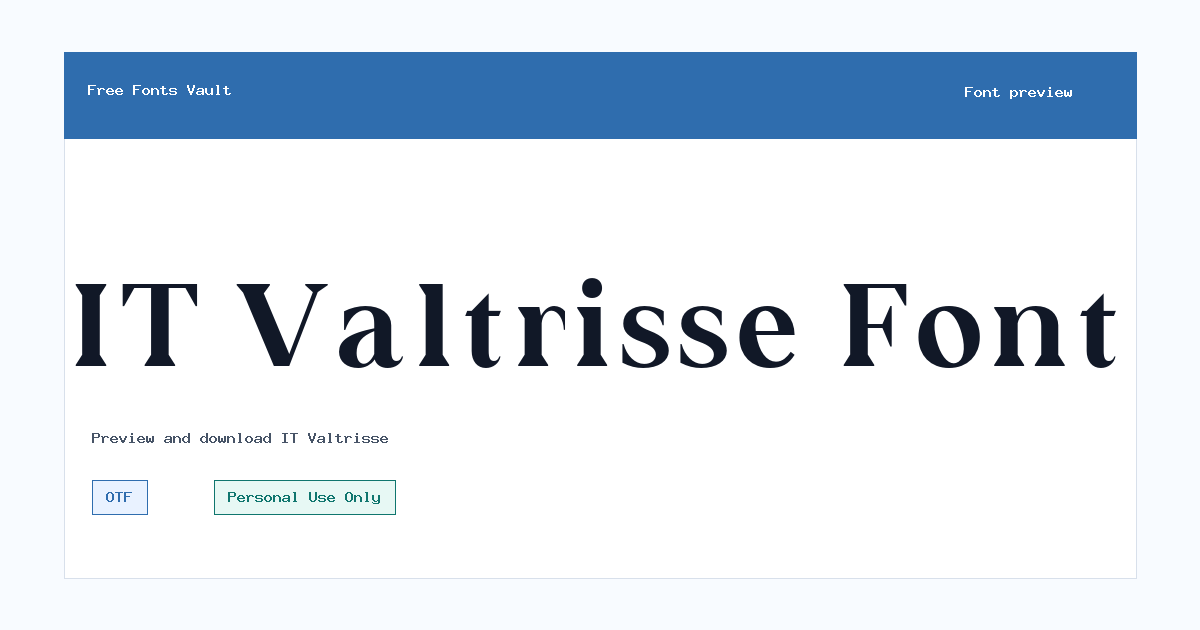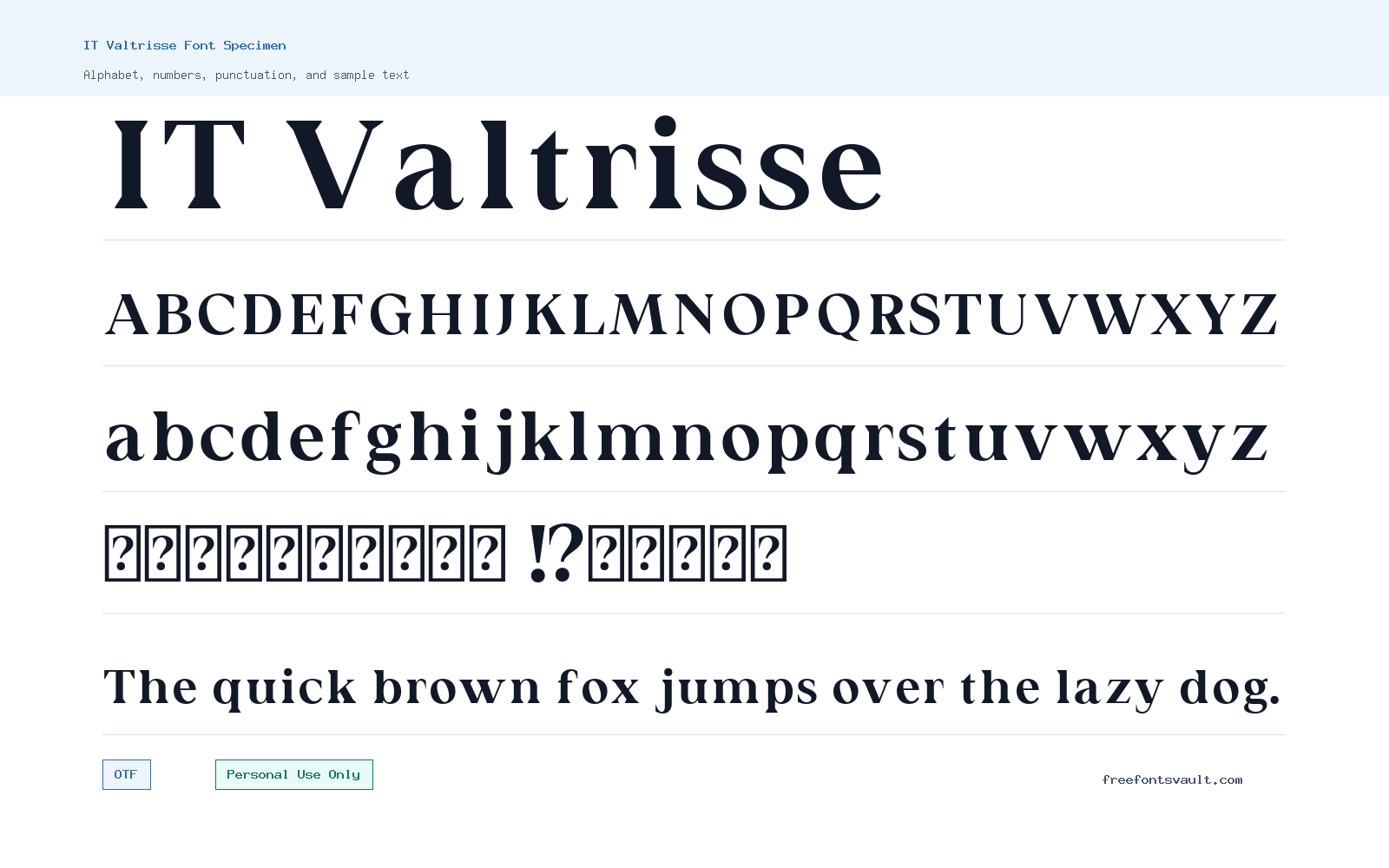
IT Valtrisse
IT Valtrisse font preview showing the family name
IT Valtrisse Font
IT Valtrisse font specimen showing alphabet, numbers, and sample text
• Designer Indotype
• Foundry Indotype Foundry
IT Valtrisse font.
IT Valtrisse is a serif font family from Indotype with regular and italic demo styles. It is suited to personal projects where you want a more refined text voice than a plain sans serif.
About IT Valtrisse Font
IT Valtrisse gives visitors a serif option with two practical styles: an upright regular and a matching italic. That makes it useful when you need a simple type system for titles, pull quotes, invitations, personal branding mockups, blog graphics, or social posts. The serif category suggests a more traditional reading feel, while the italic style gives you a way to add contrast without switching to a different font family.
• Serif font family suited to personal design tests, headings, quotes, and short text.
• Personal invitations, quote cards, mood boards, and social graphics.
• Headings, name treatments, editorial mockups, and short display text.
IT Valtrisse is credited to Indotype, with Indotype Foundry listed as the foundry.
Pair IT Valtrisse with a clean sans serif for supporting text, especially if you use it in a heading or title. Keep the serif font for the main visual moment, then use a simpler companion font for longer descriptions, captions, or interface text. If you use the italic style, reserve it for emphasis, subtitles, quotes, or small accent lines so the layout stays easy to read.
Who designed IT Valtrisse?
The font is credited to Indotype, and the foundry is listed as Indotype Foundry.
What is IT Valtrisse best used for?
It is a good candidate for short personal-use text such as headings, names, invitations, quote graphics, and editorial-style layouts. Test it carefully before using it for small body text.
Does IT Valtrisse include an italic style?
Yes. The listed family files include a regular upright style and an italic style.